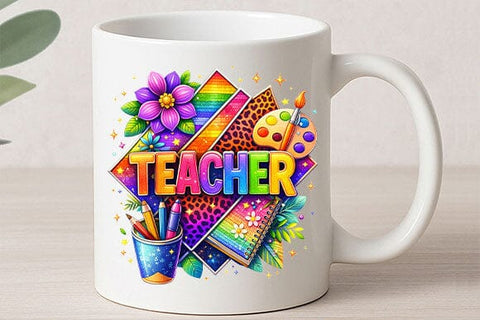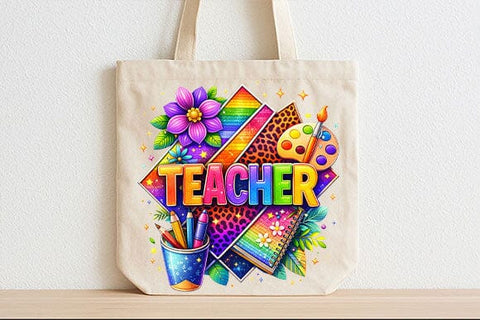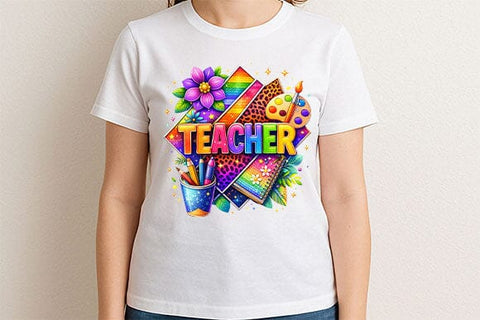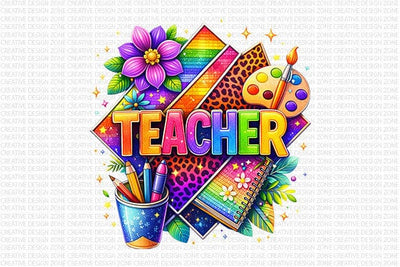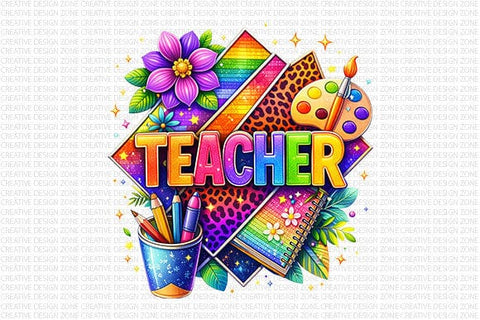
Colorful Teacher PNG Rainbow Leopard Print Sublimation Design
Celebrate educators with this vibrant Teacher PNG featuring bold rainbow typography, leopard print accents, classroom supplies, floral details, and a creative school-inspired layout. Designed for teachers, crafters, and POD sellers, this colorful teacher design offers strong visual impact while remaining highly versatile across a wide range of projects.